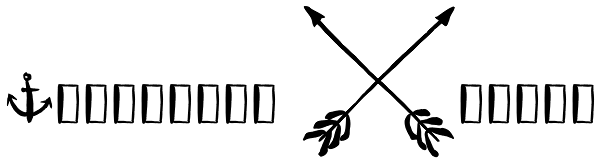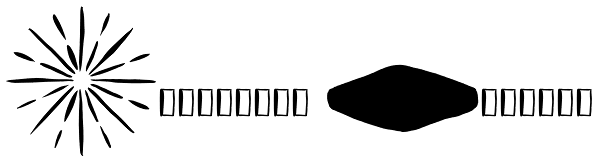
Vagabundo
Vagabundo is a hand brushed family with three styles and some extra goodies. You can combine different weights with icons, ornaments and banners to get a nice original design.